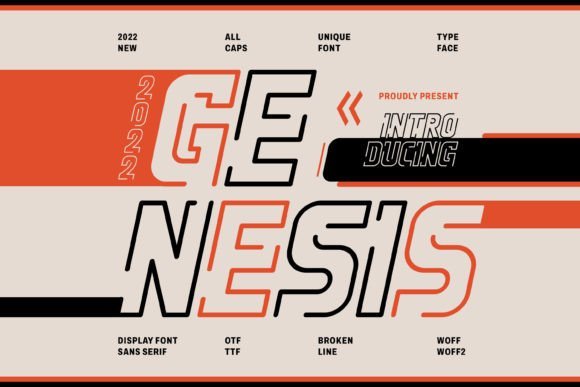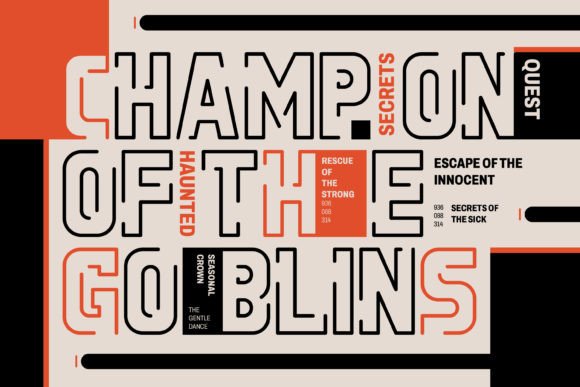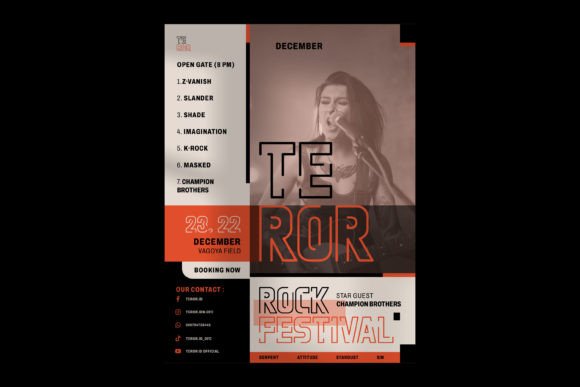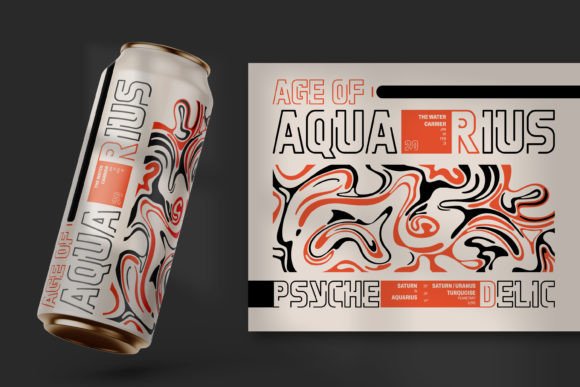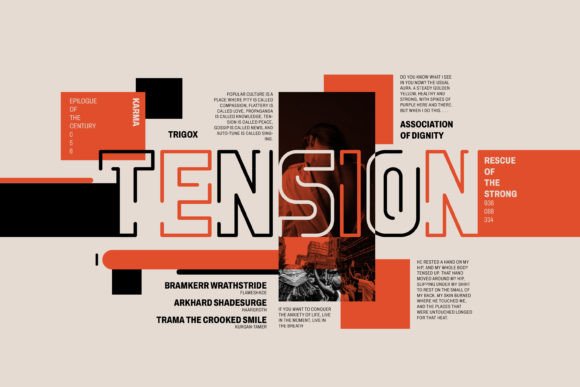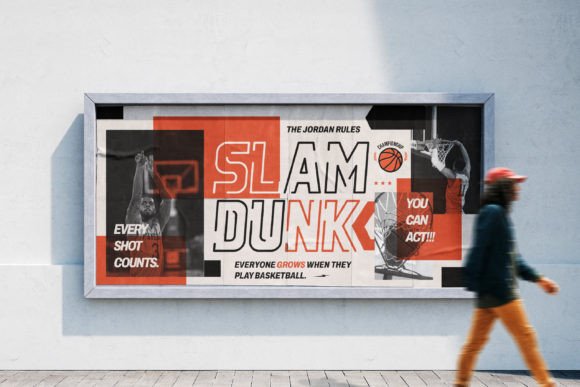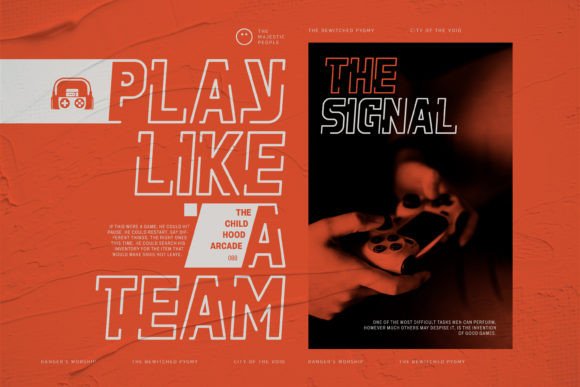
Unlock Your Creativity with the Genesis Font
Have you ever stared at a blank canvas, wondering where to start and how to bring your creative vision to life? For designers, this is a familiar feeling. It’s the moment when the blank page or screen seems like a daunting task, but the right font can be the spark that ignites your imagination. That’s where the Genesis Font comes in – a modern sans display font designed to elevate your designs and make them truly stand out.
This versatile font is perfect for designers who want to add a touch of contemporary style to their projects. Whether you’re working on a logo, a brochure, or a digital campaign, the Genesis Font is a valuable asset that can help you create something truly remarkable. Its fresh and clean design makes it easy to read and use, making it a great choice for any design project.
Genesis Font Key Features
- Unique Characteristics: The font features a unique blend of modern and classic elements, with a distinctive x-height and letter spacing that enhances readability.
- Kerning and Ligatures: The font includes advanced kerning and ligature pairs, ensuring smooth text rendering and professional-looking typography.
Genesis Font Review
The Genesis Font is a sans-serif typeface designed for modern digital use. It has a clean and minimalist aesthetic, making it a great choice for web and mobile applications. ✨ The font’s open curves and smooth lines give it a friendly and approachable feel, making it suitable for body text and headings alike. ✨ Its x-height is well-balanced, ensuring readability even at smaller font sizes. ✨ The font also supports a wide range of languages, making it a versatile option for global audiences.
However, there are some limitations to consider. ⚠️ The font may not be suitable for formal or traditional settings, as its modern aesthetic may come across as too casual. ⚠️ Additionally, the font’s thin lines may make it difficult to read in certain environments, such as low-light conditions or on low-resolution screens. ⚠️
- Clean and minimalist design
- Open curves and smooth lines
- Well-balanced x-height
- Supports a wide range of languages
- Available in various weights and styles
Genesis Font Practical Application Guide
For best results, use the Genesis Font in combination with other clean and modern fonts to create a visually appealing design.
The Genesis Font is ideal for:
- Modern branding and logos.
- Business cards and resumes.
- Web design and development.
- Print materials and marketing collateral.
Remember to use the Genesis Font consistently across